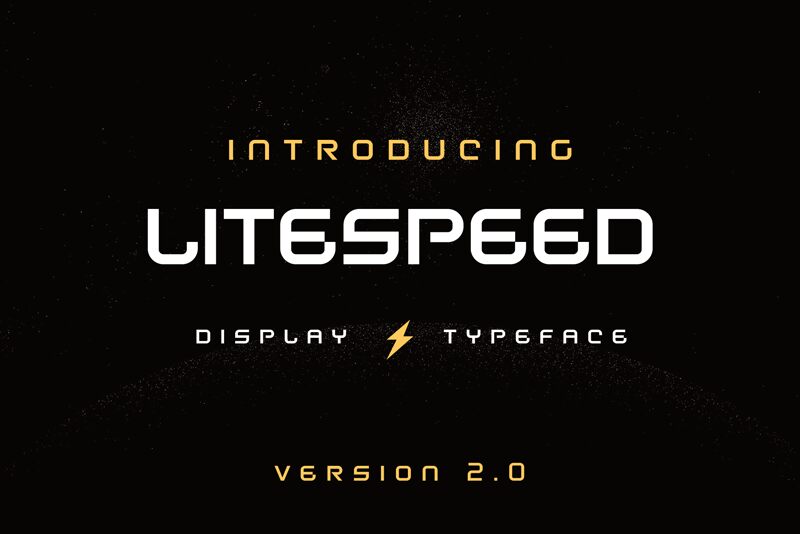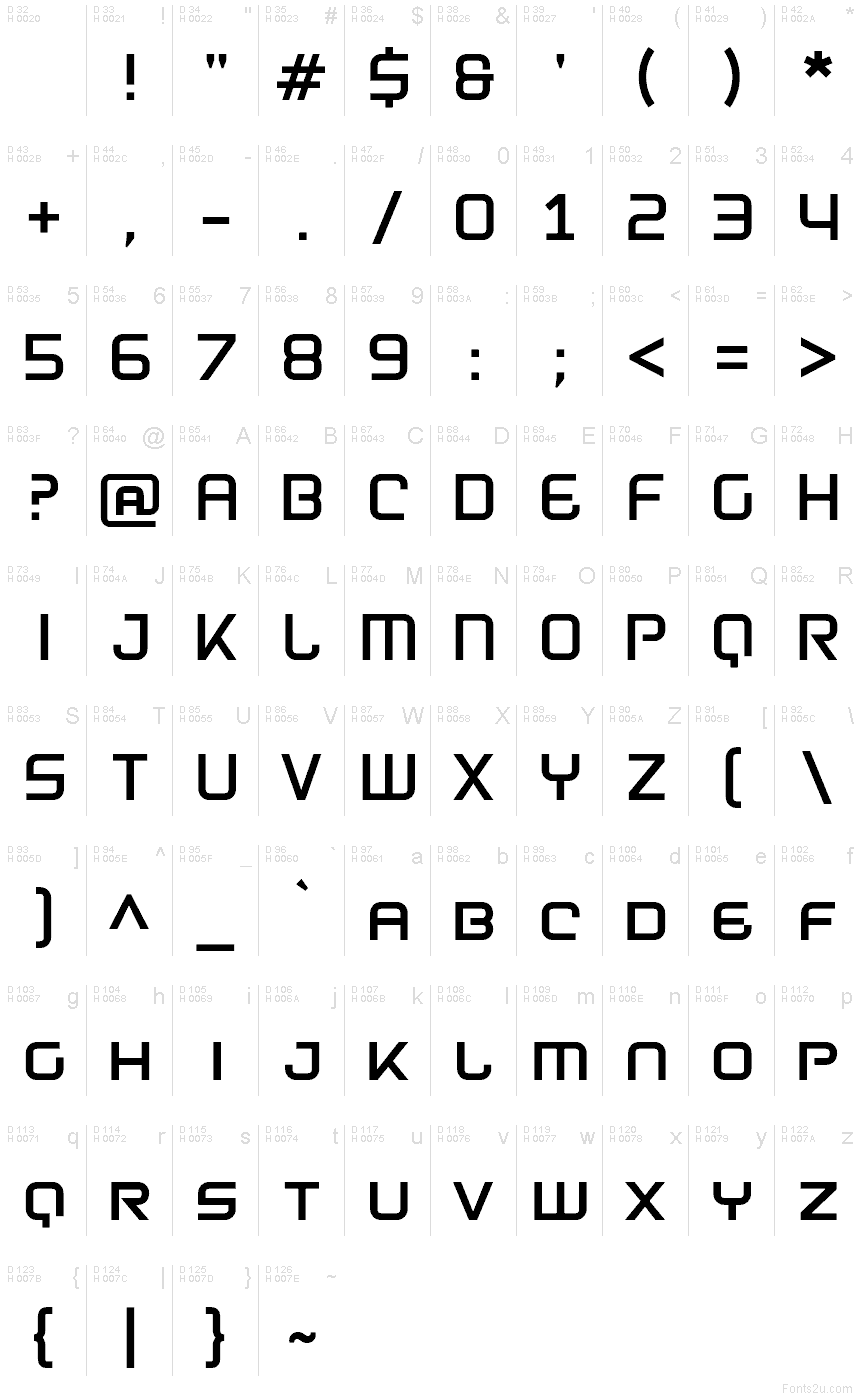
Litespeed Bold
Litespeed Bold font by Tiago Sa is a free futuristic display typeface with a crisp, geometric build and a strong technical edge. Its thick, streamlined strokes and squared curves feel like they’ve been cut from brushed metal, giving every word a sense of motion and engineered precision. The tight rhythm and consistent forms make the Litespeed family an immediate go-to when you want a bold, tech-forward presence with zero clutter.
Using Litespeed Bold, this free font shines on sci‑fi logos, esports branding, UI headers, tech product packaging, automotive graphics, and event posters. It holds up especially well at large sizes, where its clean geometry and confident weight can really breathe. For supporting text, pair Litespeed with a simple, neutral sans in a lighter weight to keep the focus on its futuristic character.